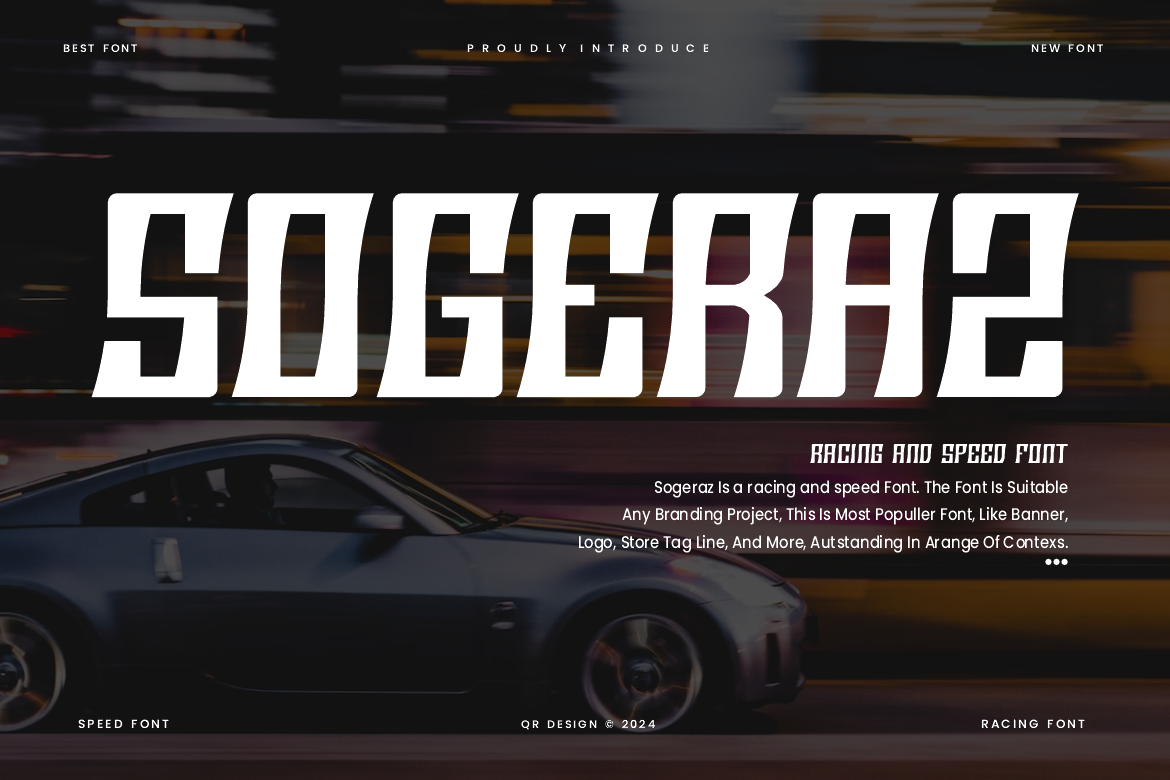
Sogeraz - Racing & Speed Font
Sogeraz Font is a racing and authentic display font. The font is suitable for any branding project like poster, logo, sport, and many more. Outstanding in a wide range of contexts.